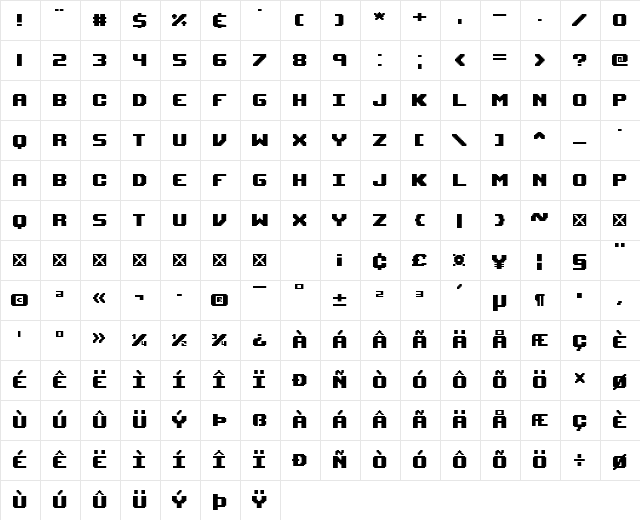
Upheaval TT BRK Regular
Design Context for Upheaval TT BRK
Upheaval TT BRK is a composed and adaptable typeface that performs quietly and consistently across a wide range of design contexts.
Pro Tip: Use Upheaval TT BRK in both headline and body roles to test its range before committing to a single application.